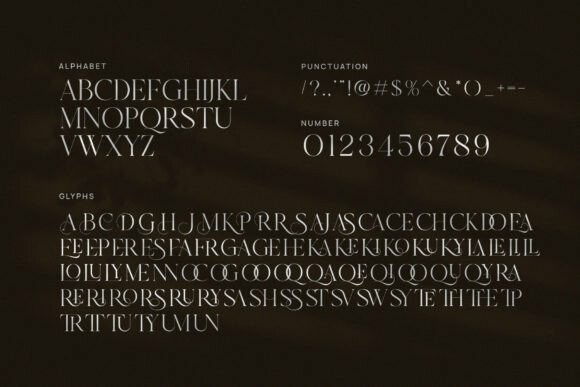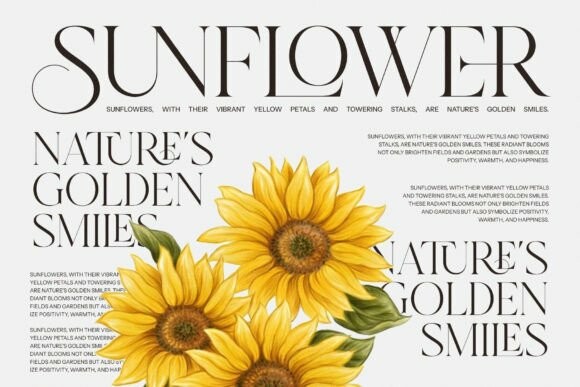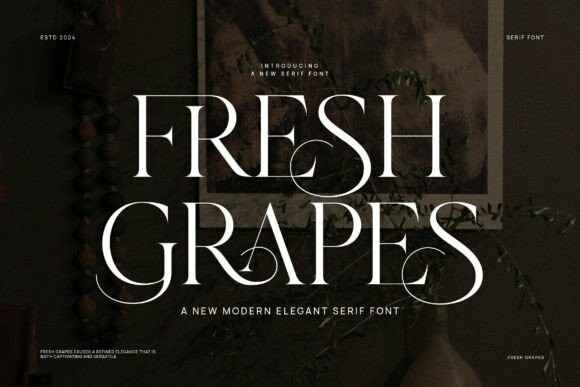
Fresh Grapes Font
Fresh Grapes Font – Modern Serif Font is inspired by the famous minimalist logo perfect for the purposes of designing templates, brochures, videos, advertising branding, logos, invitations, layout design, elegant crafting, beauty design, and more.